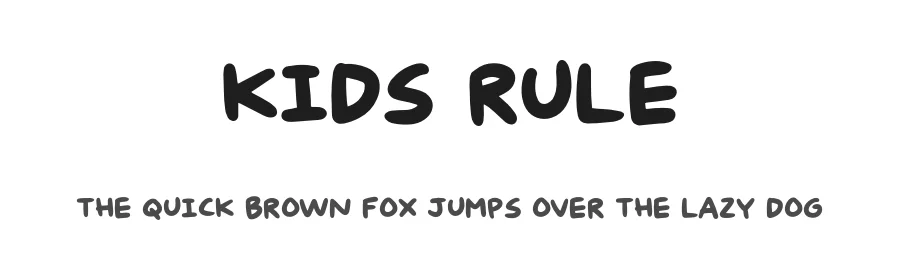
About Alex Bold Font
Hand drawn font used in Viz comic (UK), free for personal use. Upper Case gives bold, so best to use either all caps or all lower case.
Alex Bold Font is a decorative font that shines as a display or heading face. Pair it with a clean sans-serif or serif font for body text β the contrast creates a clear hierarchy while the two styles stay balanced and easy to read.
Alex Bold Font